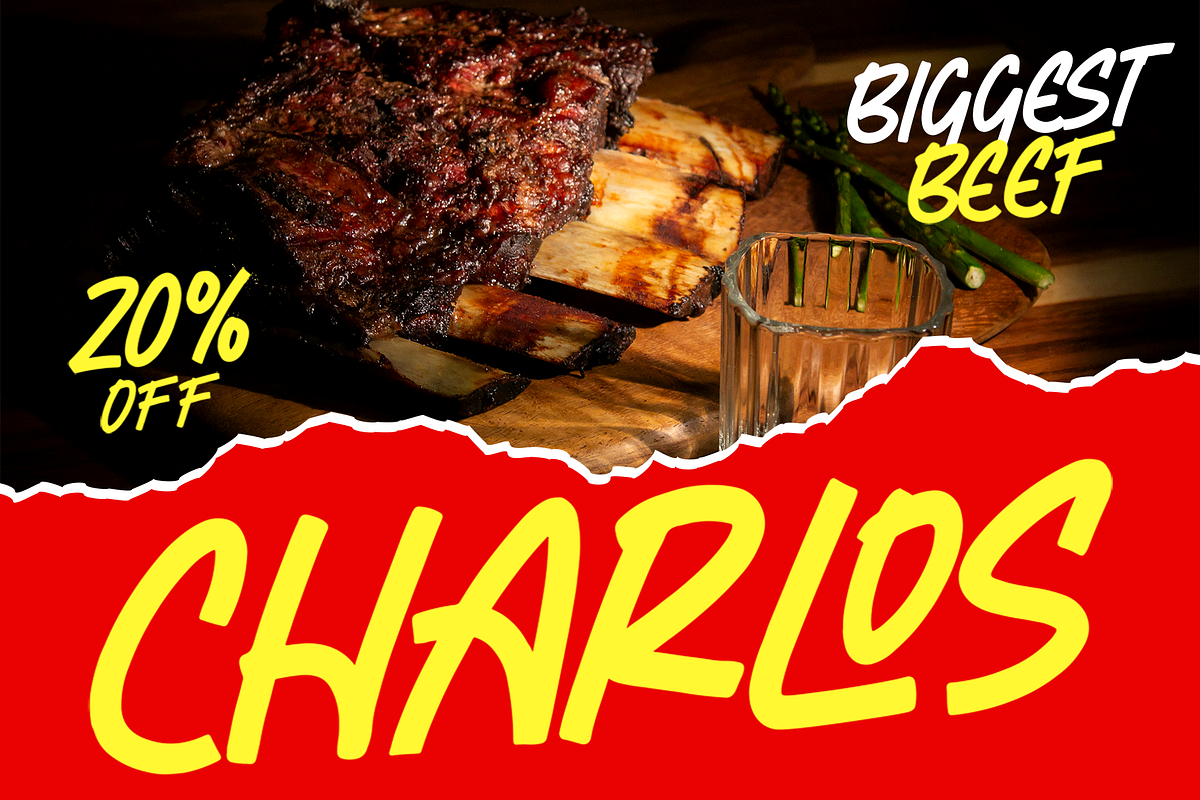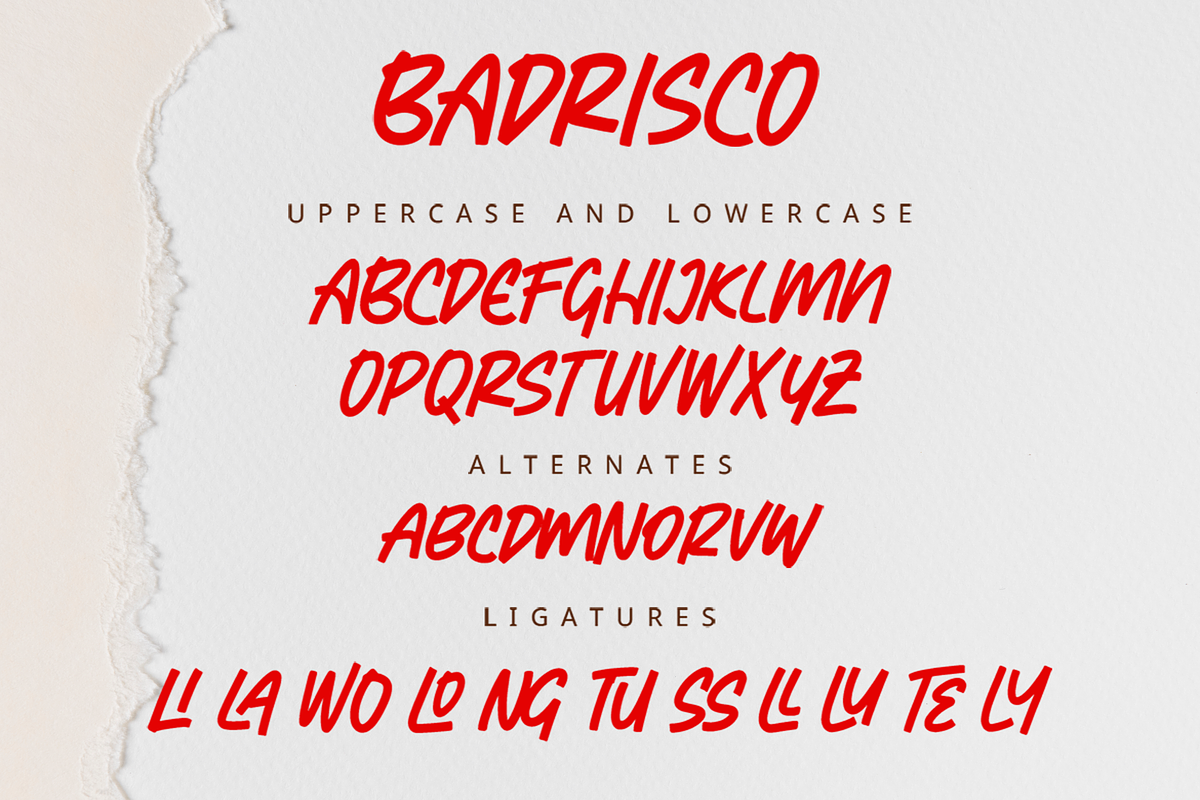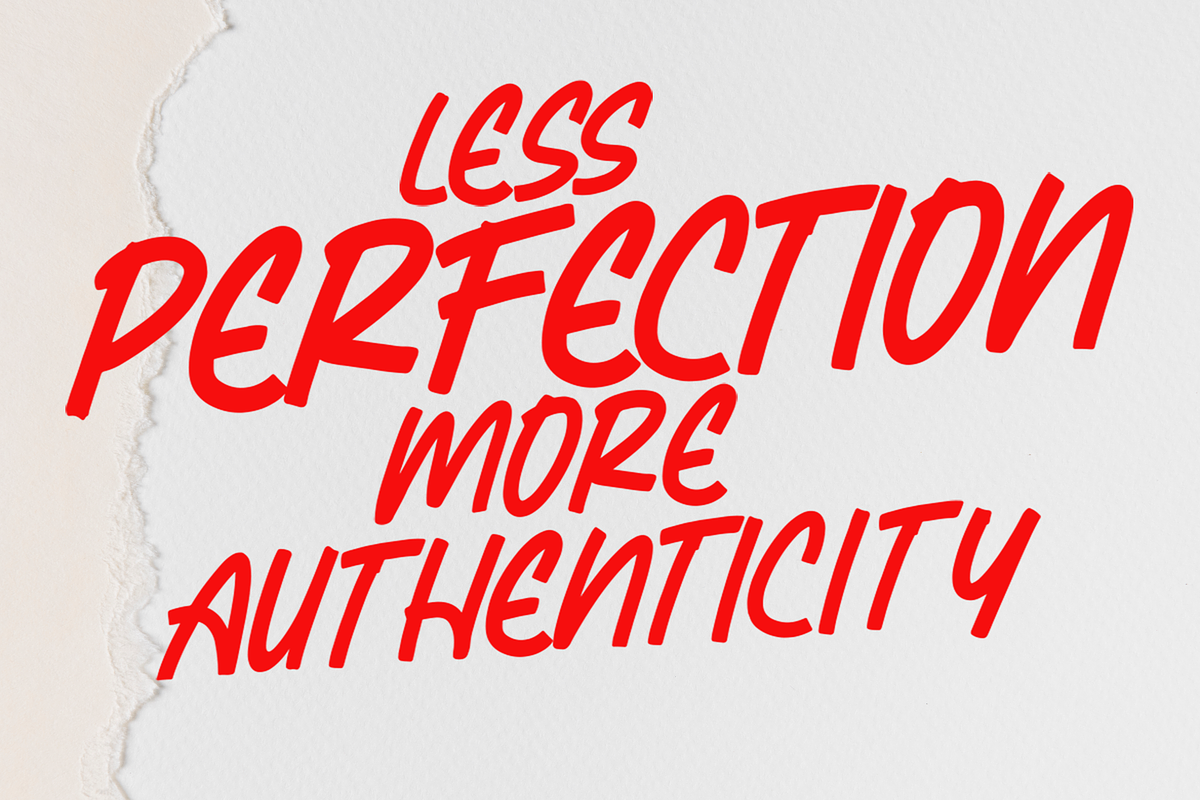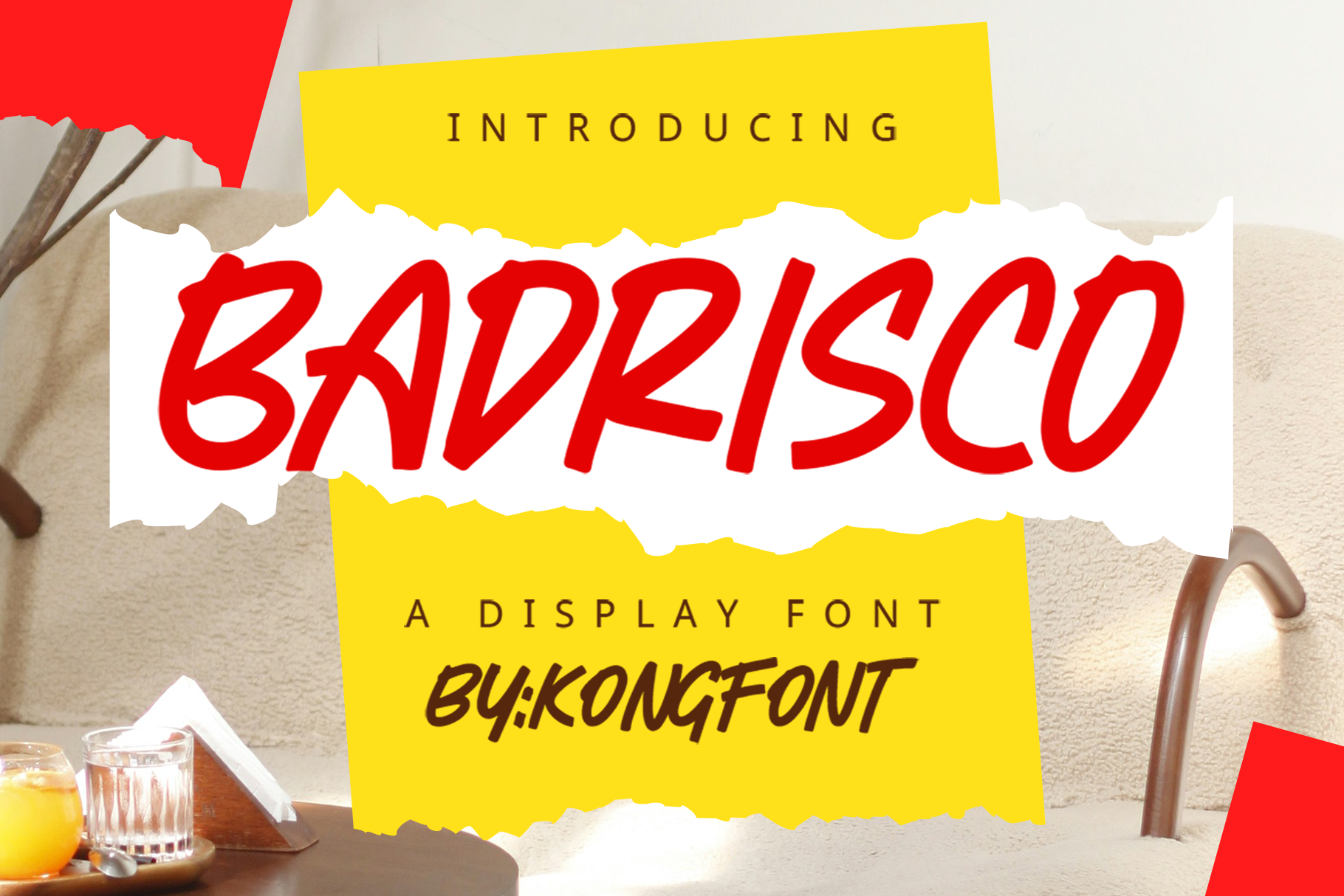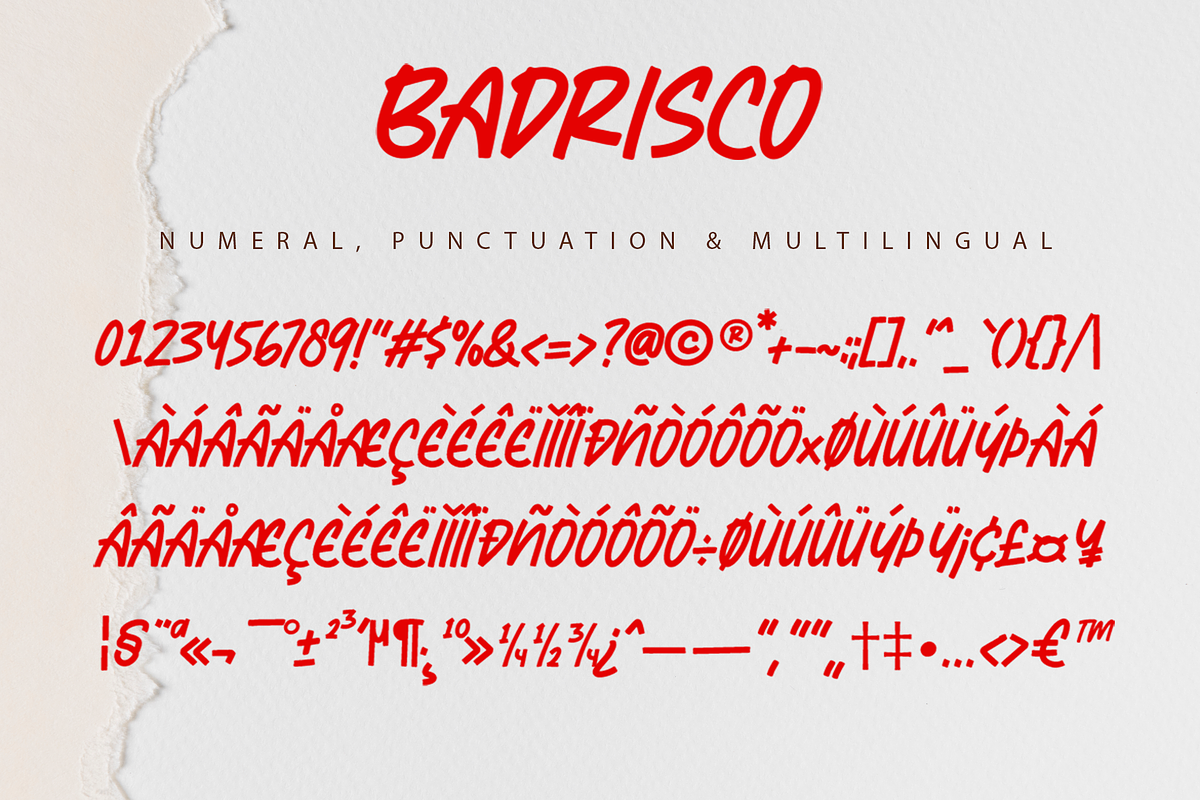
Badrisco - A Display Font
Introducing Badrisco, a striking display font crafted for designs that demand attention. With its bold and dynamic style, this typeface brings energy and personality to any project.
Ideal for branding, posters, headlines, and social media graphics, Badrisco adds a modern edge to your creative work. Its clean, bold structure ensures maximum readability while delivering a memorable visual impact.
Complete with a full character set and multilingual support, Badrisco is a versatile choice for designers looking to make their projects stand out.